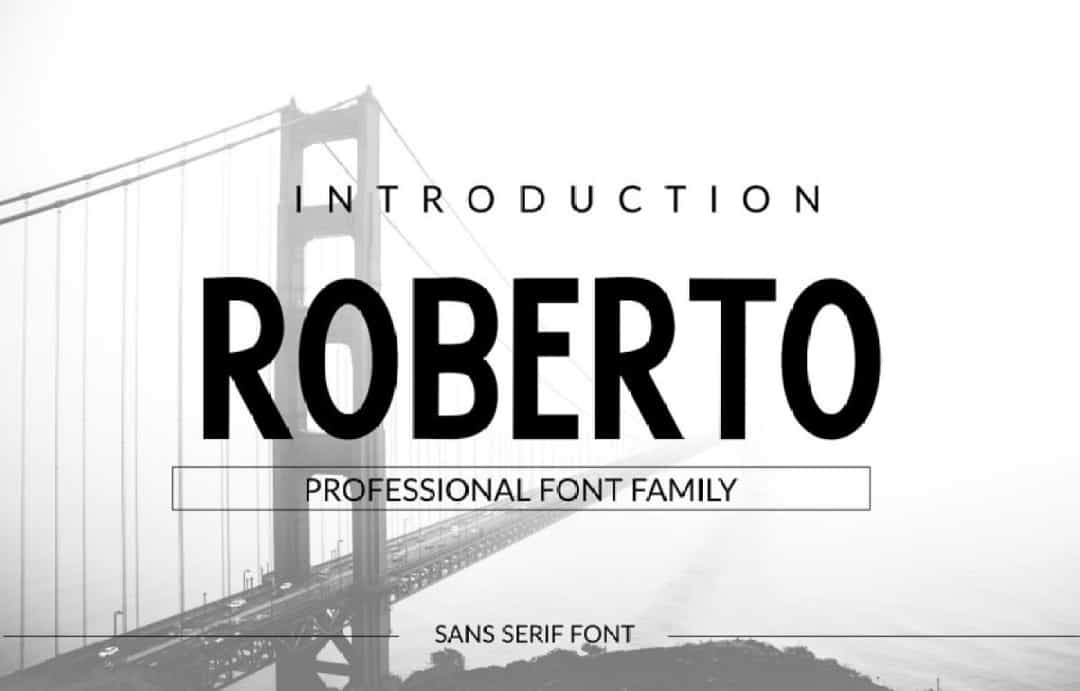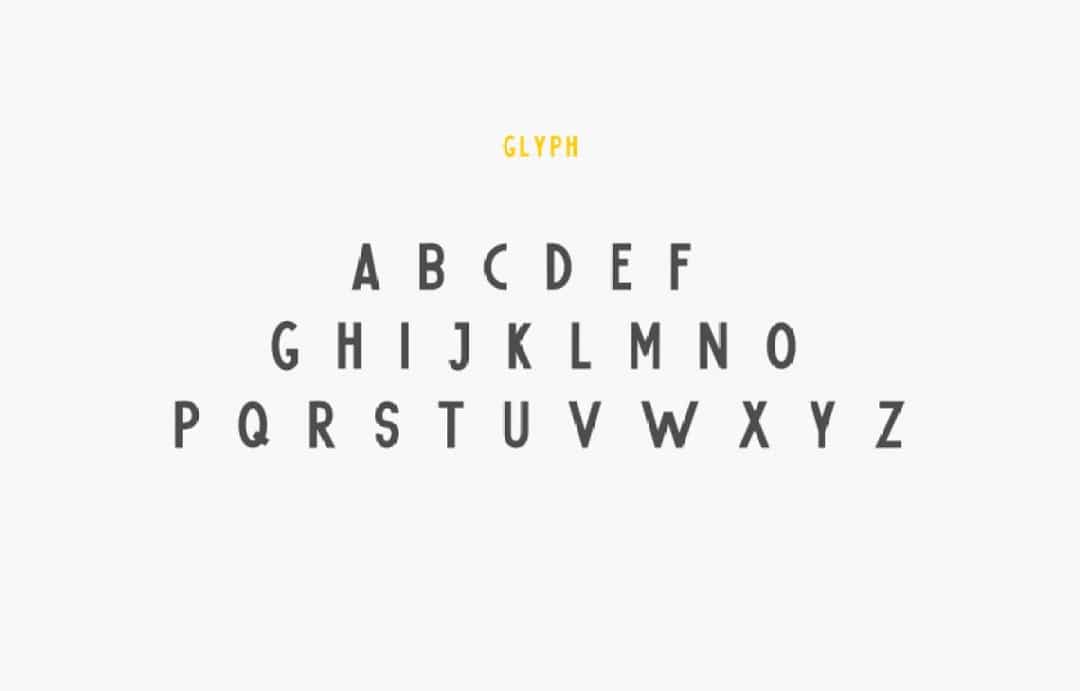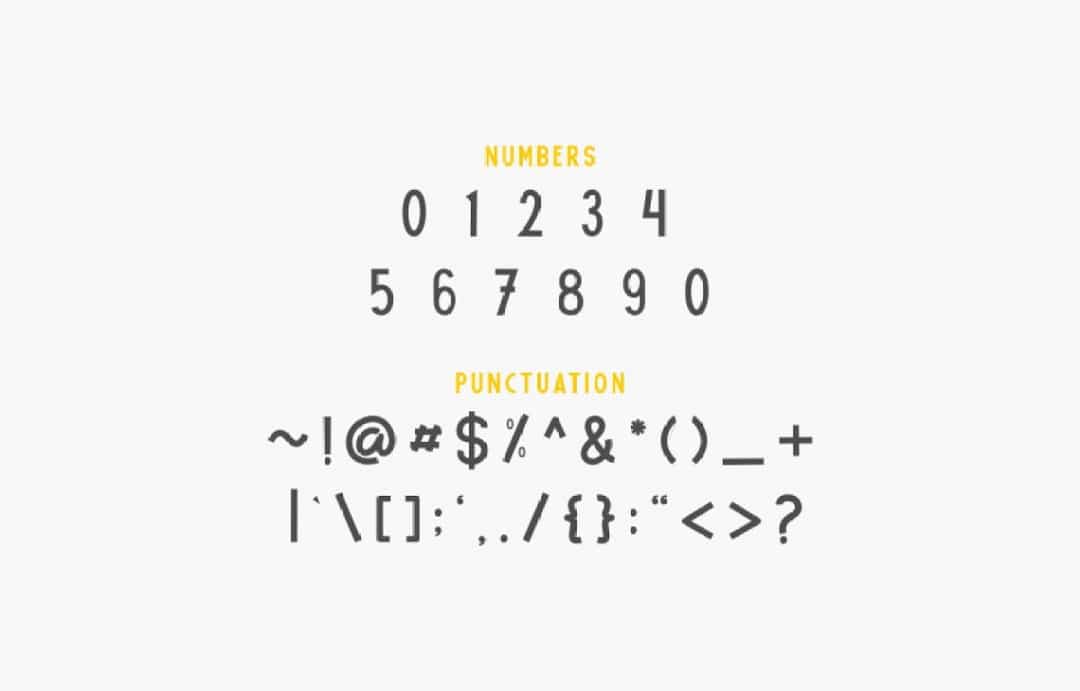
Roberto offers an elegant and professional Sans Serif font that stands out in any project, making your creations pop! Feel free to incorporate this font in your creativity and experience how it makes a statement!